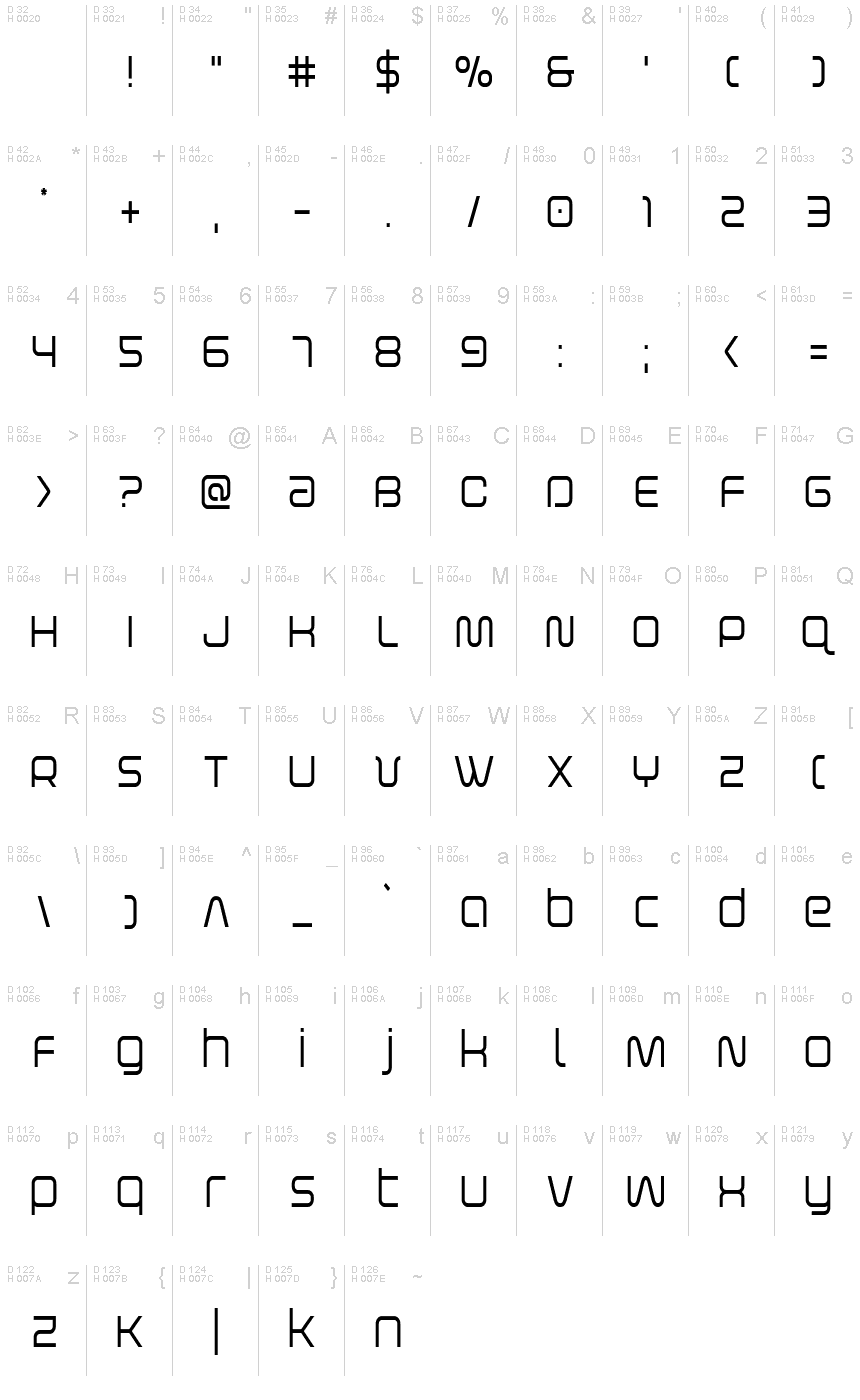
Fox on the Go Condensed
Fox on the Go Condensed is a cutting-edge offering from the Fox on the Go font family, meticulously crafted by Iconian Fonts. This display typeface stands out with its semi-light weight and semi-expanded width, delivering a futuristic style that is both sleek and readable. The distinct character shapes of Fox on the Go Condensed exude modernity and dynamism, which makes it an excellent choice for projects that call for a contemporary touch.
The font's aesthetic strikes an exquisite balance between innovative design and functional clarity. It's particularly suitable for titles, headers, and any application where you want your message to pop without compromising on legibility. Whether you're designing a tech startup’s logo or creating promotional materials for a forward-thinking event, Fox on the Go Condensed is designed to capture attention while propelling your creative vision into tomorrow.